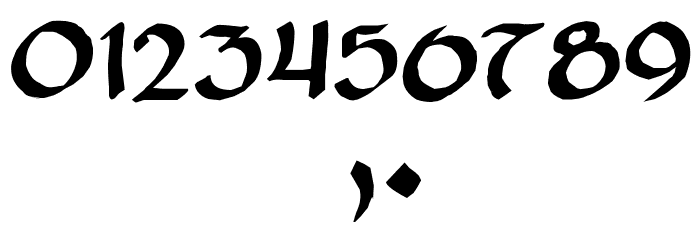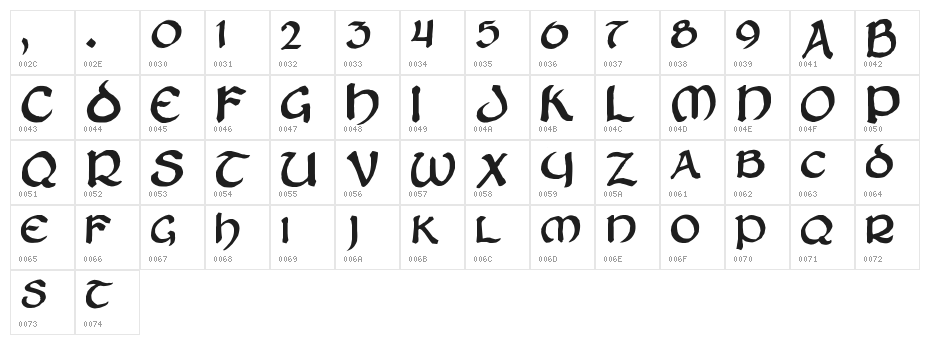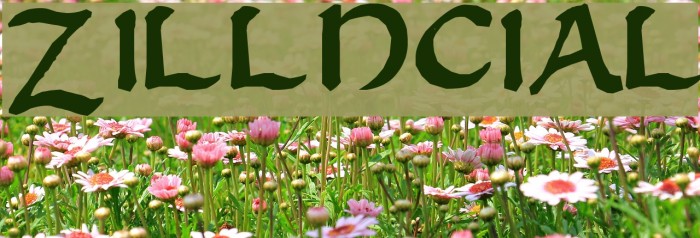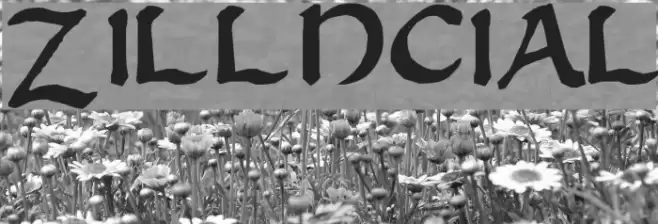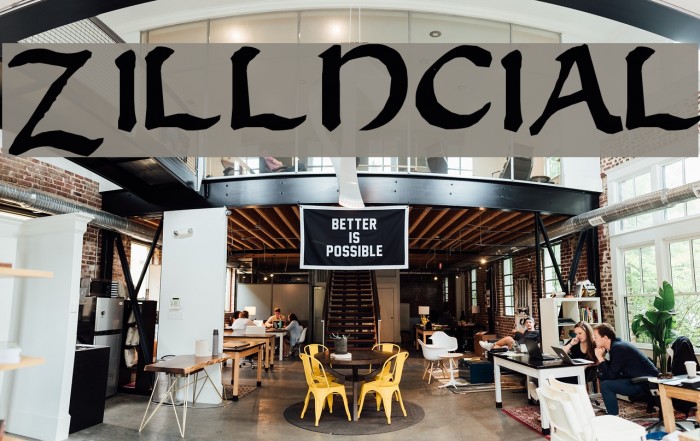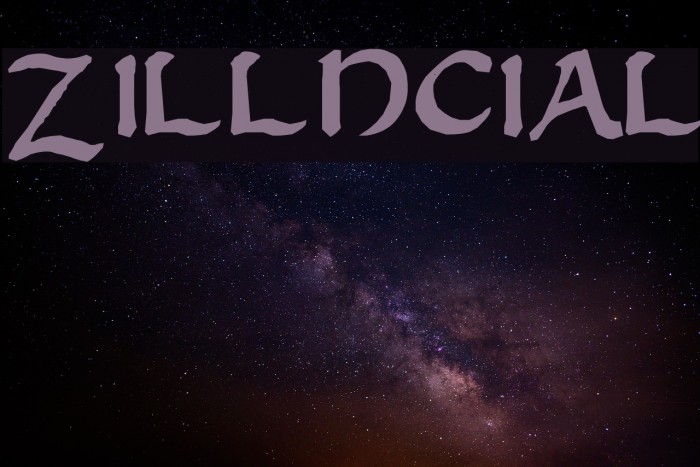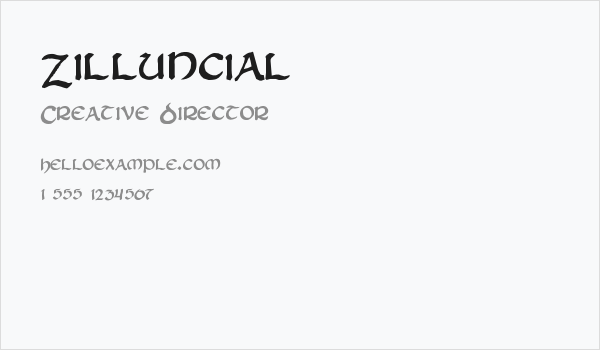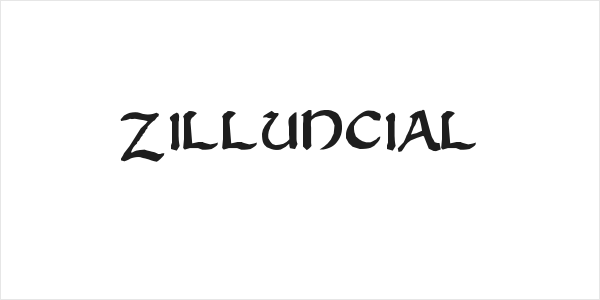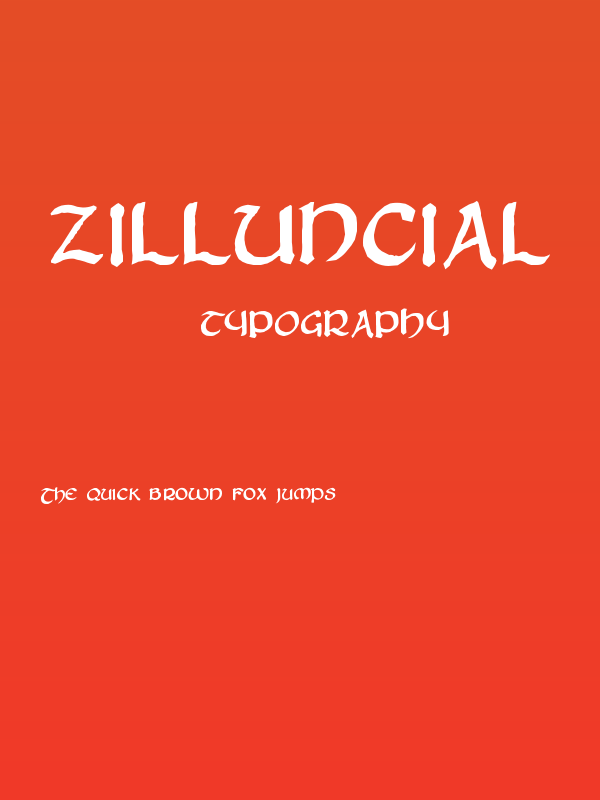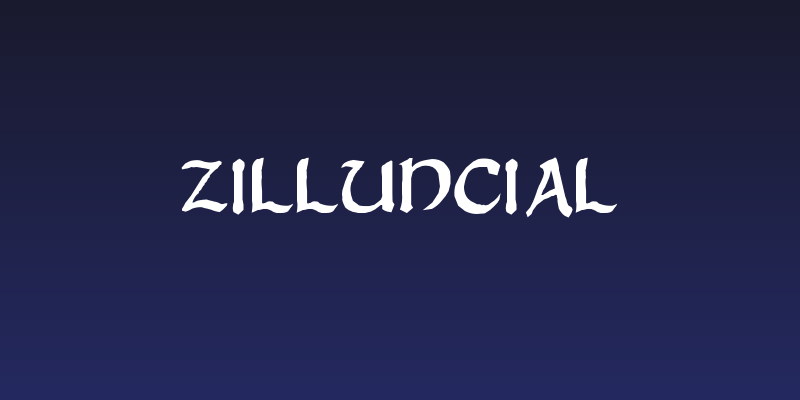
Zilluncial Font
Zilluncial Description
This font exhibits a distinct calligraphic style reminiscent of medieval script, characterized by its ornate and flowing letterforms. The uppercase letters are bold and commanding, with intricate curves and sharp angles that give them a dramatic presence. The lowercase letters maintain a consistent style, with a slightly more subdued appearance, yet still retaining the decorative flair. The numerals are equally stylized, featuring unique shapes that complement the overall aesthetic. This font's special characters, such as the question mark and exclamation point, are crafted with the same attention to detail, ensuring a cohesive look across all characters.
| Proposed Projects | Ideal for historical-themed projects, fantasy book covers, medieval event invitations, or any design requiring a touch of old-world elegance. |